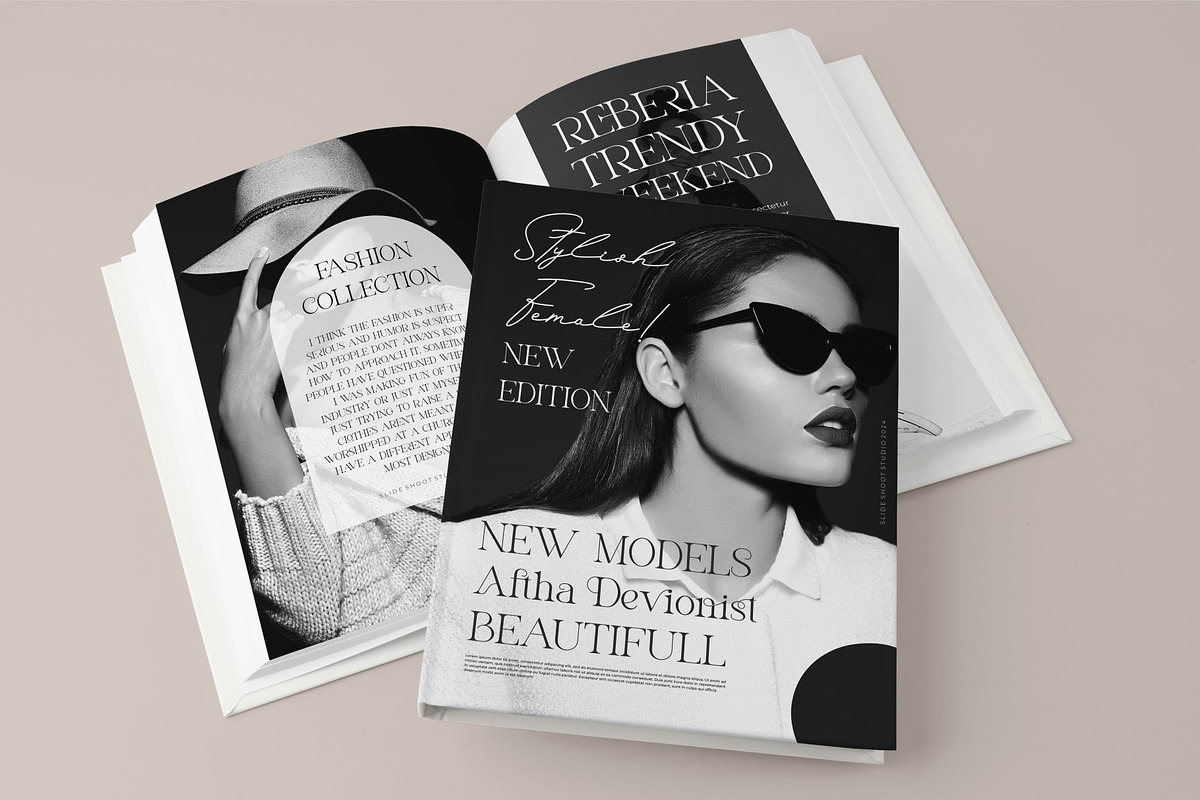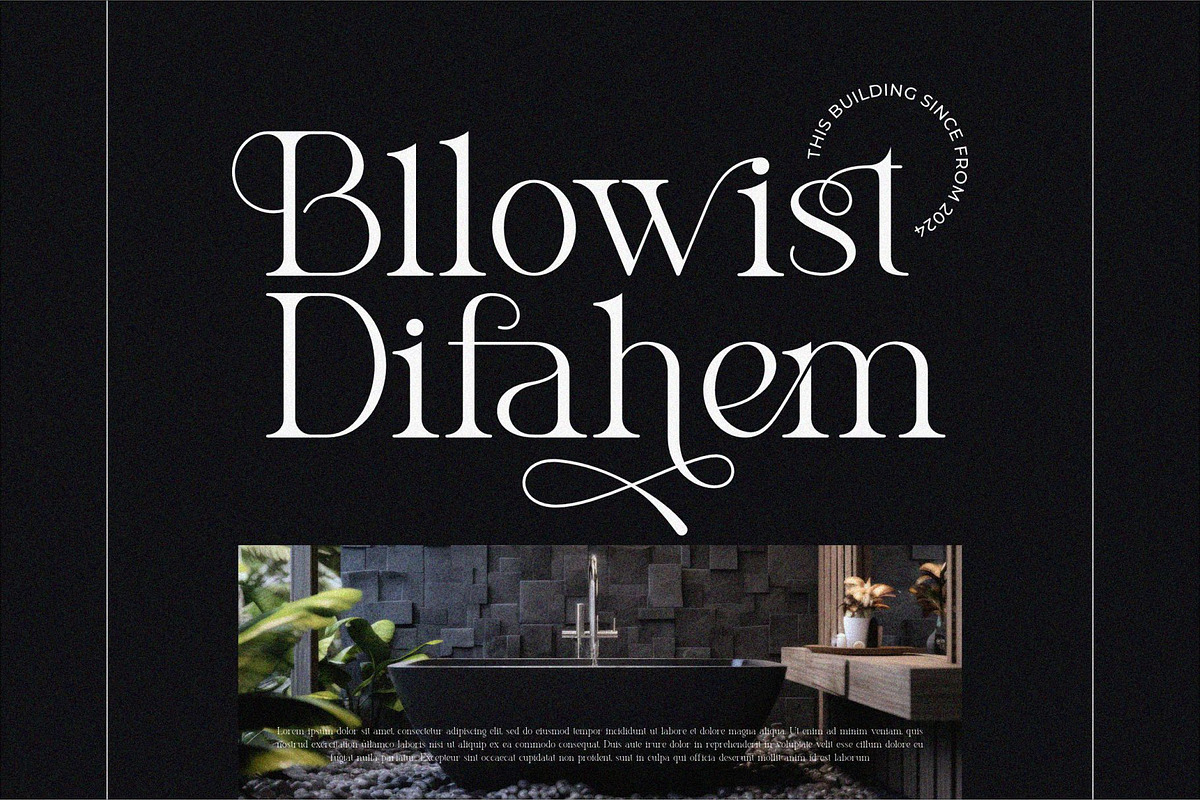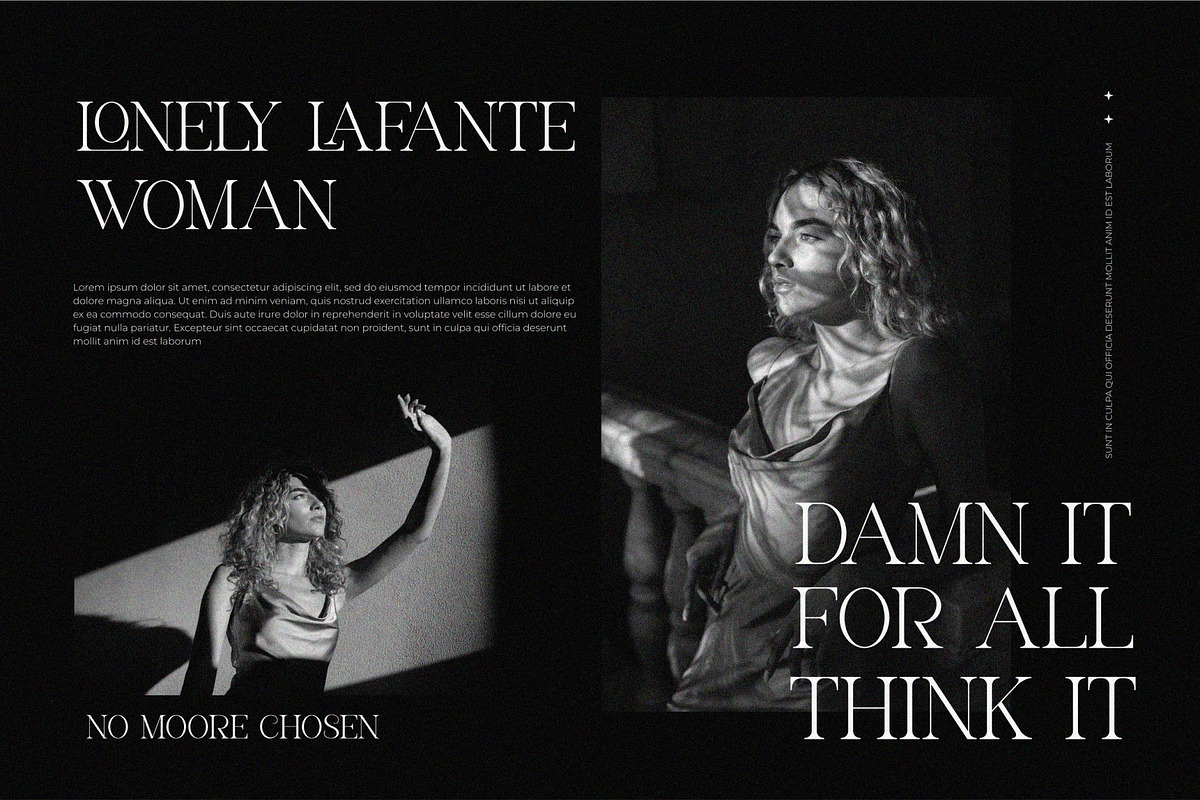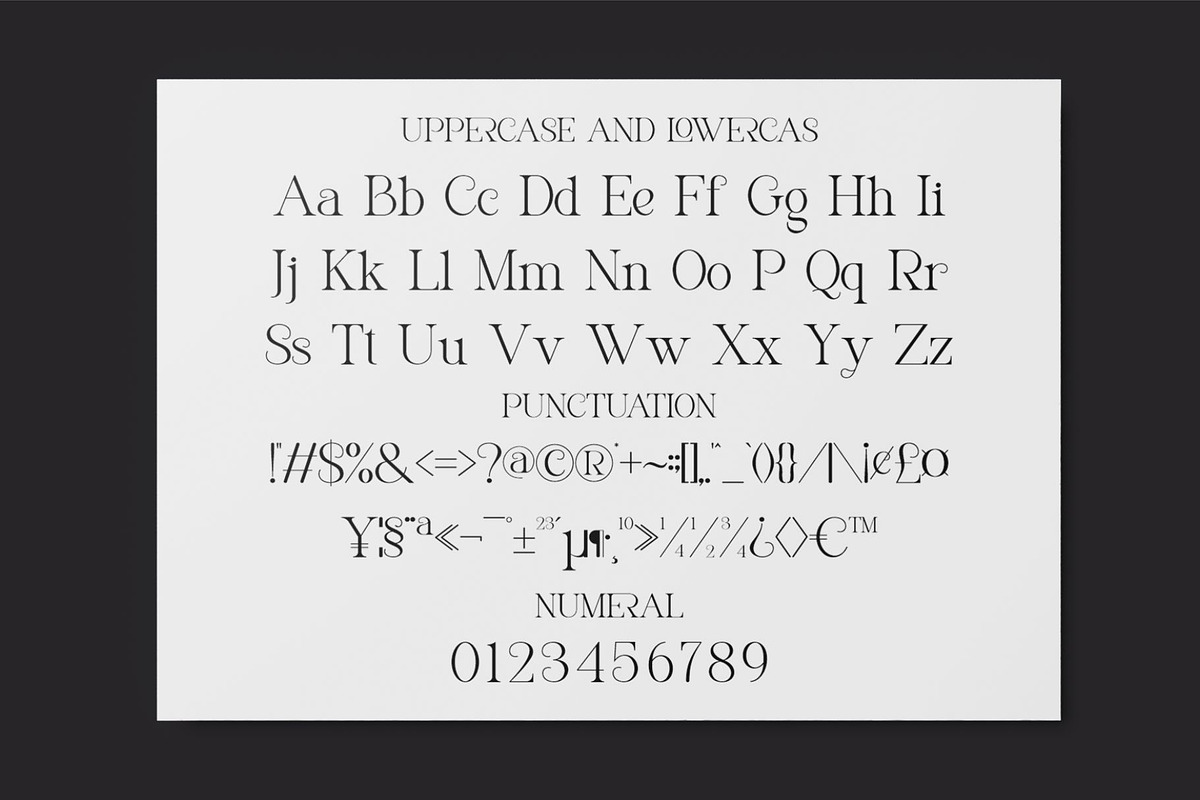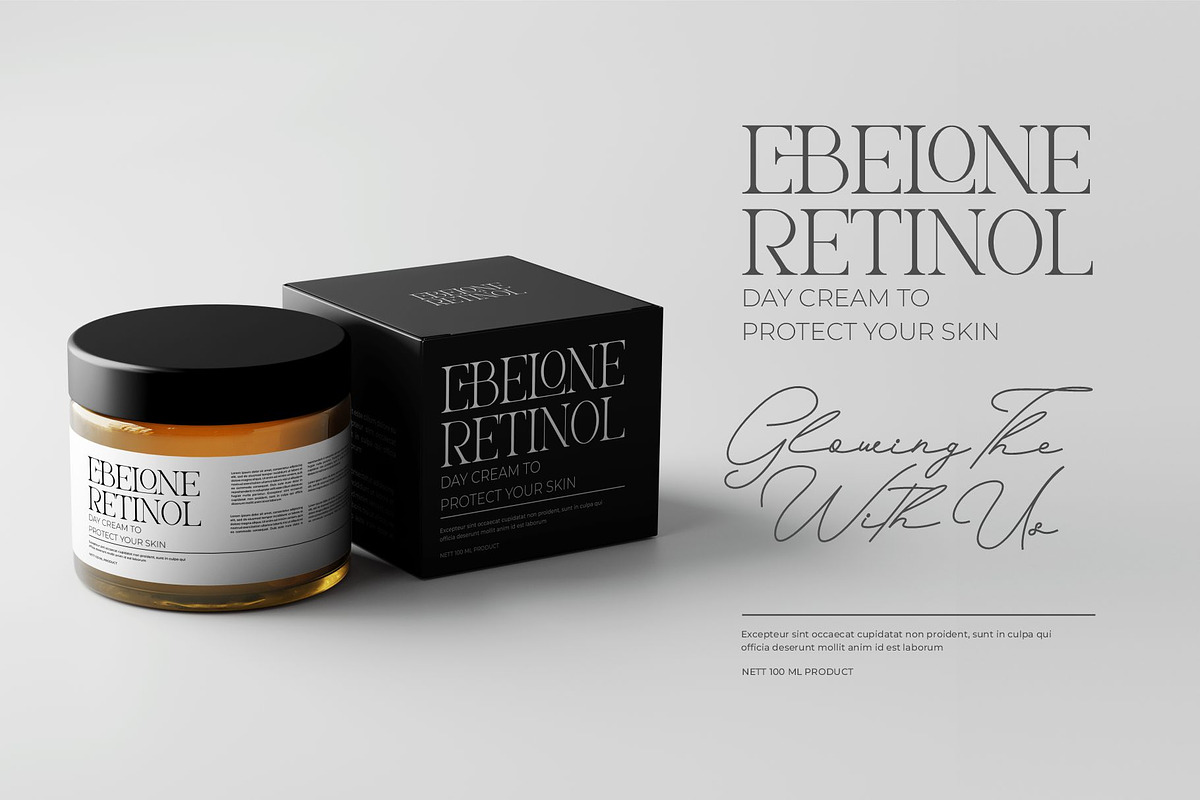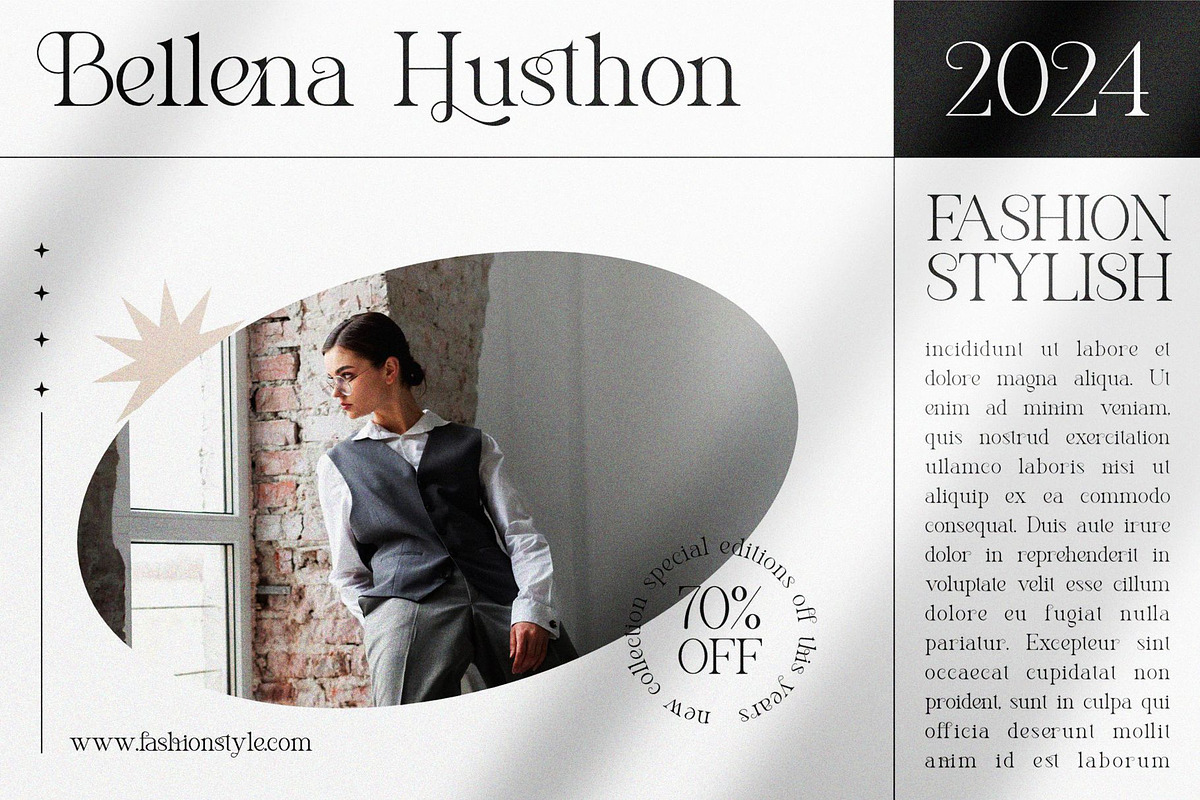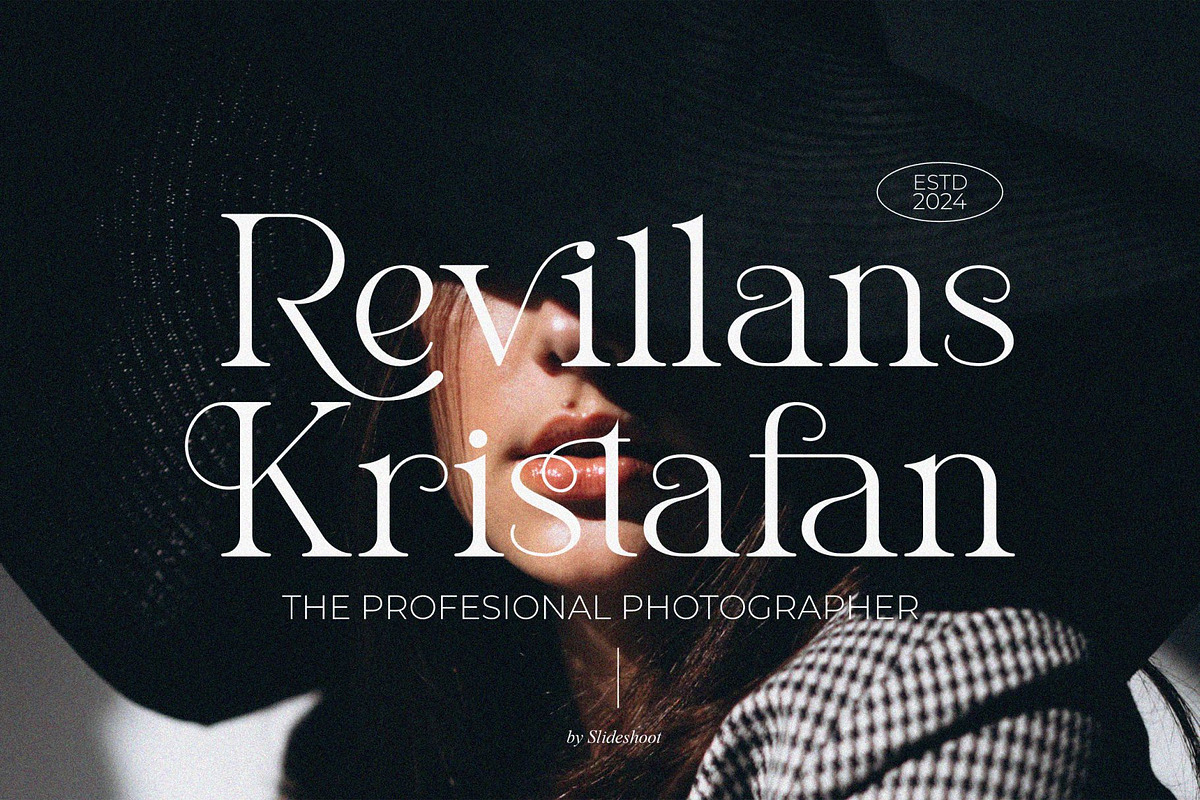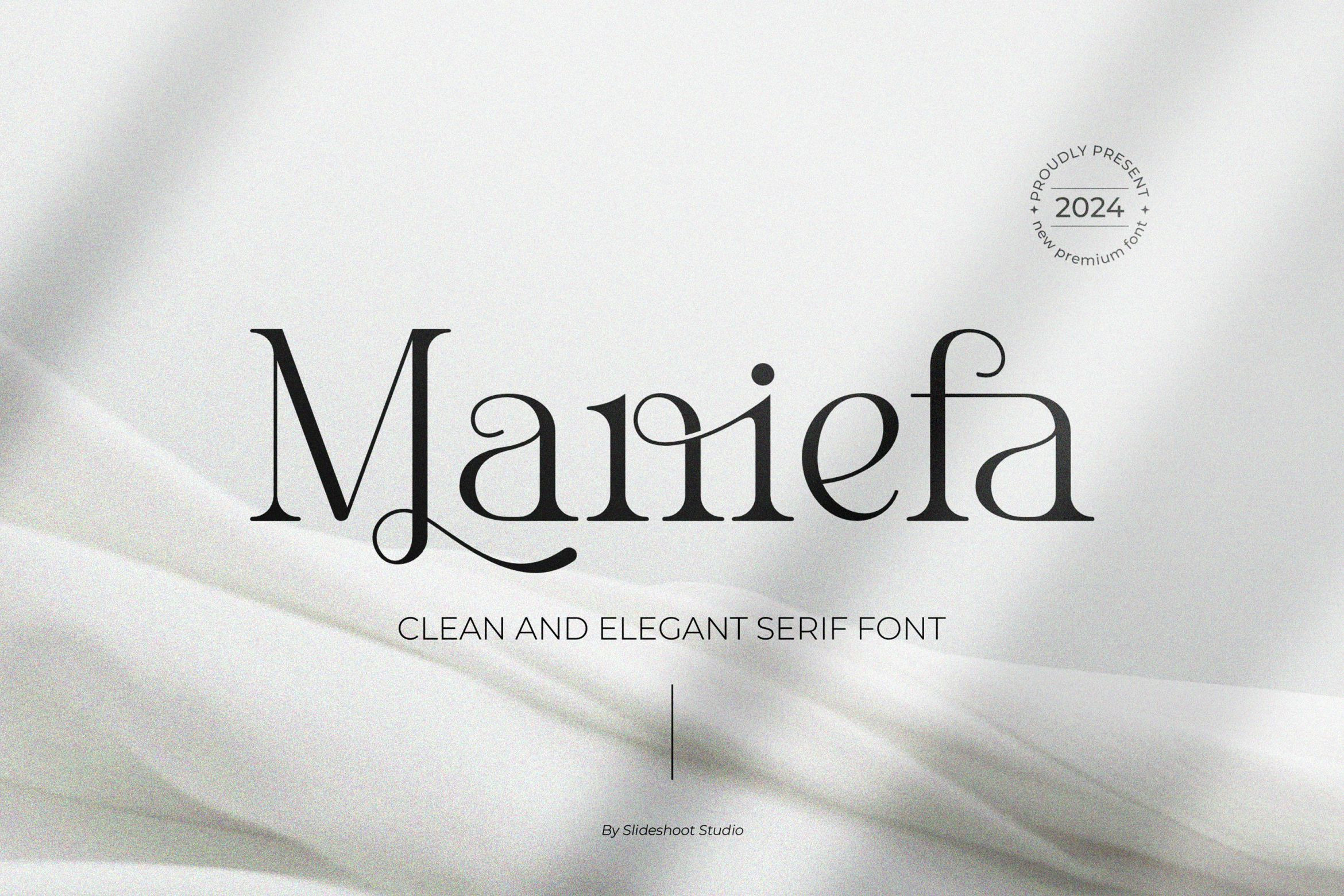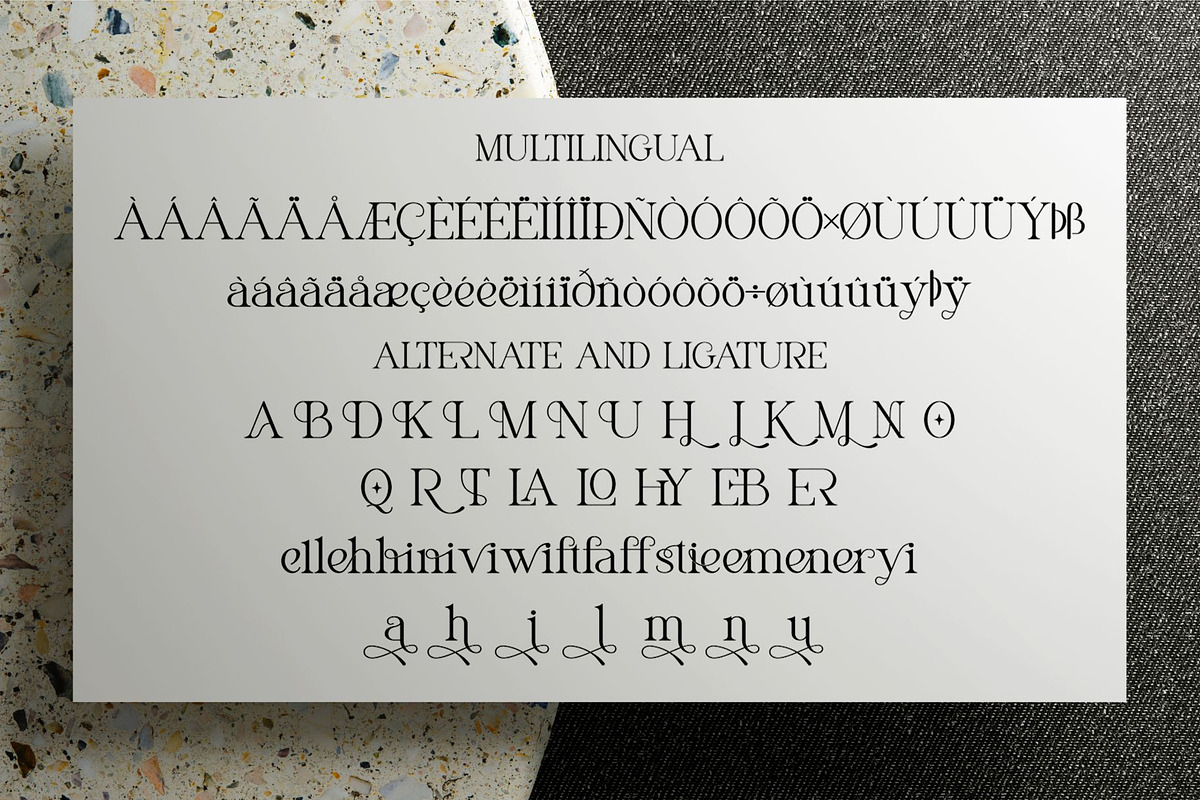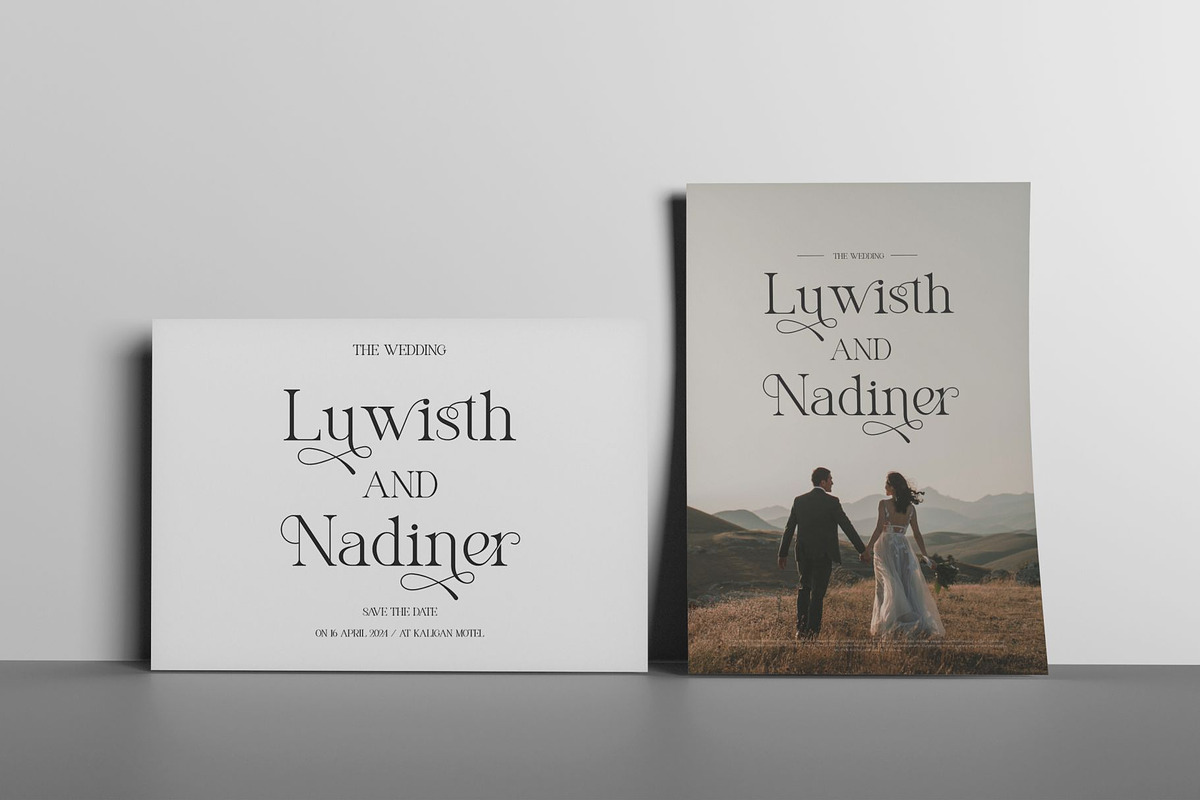
Maniefa || Elegant Serif Font
Maniefa is a serif font that exudes luxury and elegance. It draws attention and enhances any design. It is perfect for invitation card designs, company logos, movie titles, movie names, business cards, book titles, brand names, and many other designs. Maniefa is an elegant serif font that exudes sophistication and cohesion. Its stylish inflections and ligatures make it a perfect partner for any project.